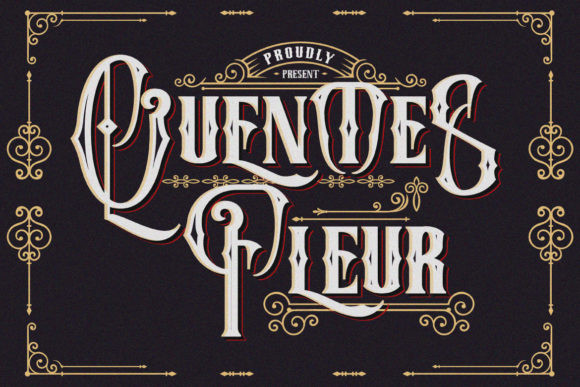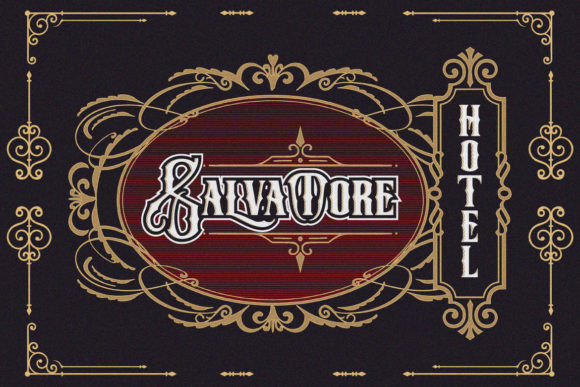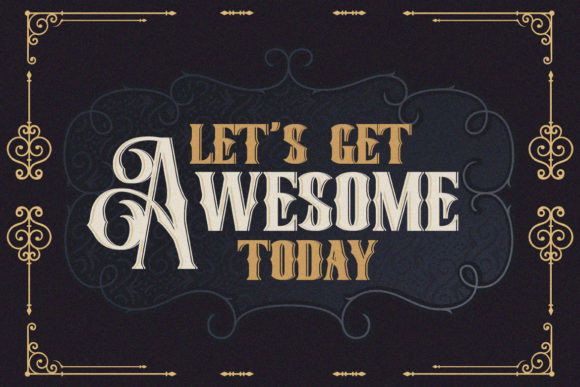
Quentes Fleur Font
Quentes Fleur is an incredibly unique and distinct blackletter font. Masterfully designed to become a true favorite, this font has the potential to bring each of your creative ideas to the highest level!